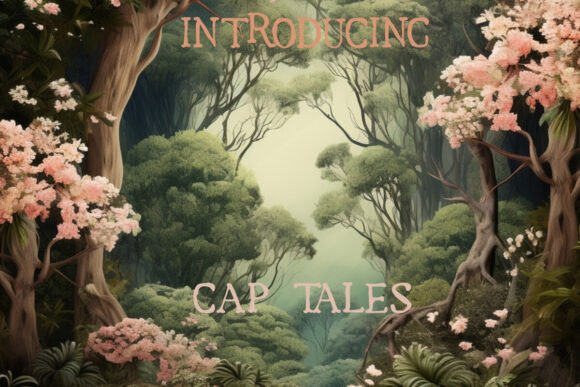
Discover the Versatility of Cap Tales Font: Elevate Your Designs to New Heights
Typography is an essential element in design, and the right font can make all the difference. If you’re a designer, crafter, or simply a creative enthusiast, you’re likely always on the lookout for fonts that can help you stand out from the crowd. That’s where Cap Tales font comes in – a versatile and charming typeface that’s perfect for a wide range of applications.
The Charm of Cap Tales Font
Cap Tales font is a unique and captivating typeface that’s designed to breathe life into your designs. Its adaptability is its greatest charm, making it suitable for various projects, from casual T-Shirt designs to professional magazine layouts. Whether you’re looking to create eye-catching stickers, amplify your brand’s voice, or add a personal touch to your greeting cards, Cap Tales font is the perfect choice.
Endless Possibilities with Cap Tales Font
The possibilities are indeed endless with Cap Tales font. Here are just a few examples of how you can use this versatile font to take your designs to the next level:
• T-Shirt Designs: Create custom apparel that’s both stylish and memorable with Cap Tales font. Its unique charm is sure to turn heads and spark conversations.
• Stickers: Add a pop of personality to your stickers with Cap Tales font. Perfect for laptops, water bottles, or any other surface that needs a bit of flair.
• Magazines: Elevate your magazine designs with the sophistication and elegance of Cap Tales font. Ideal for headlines, titles, and captions.
• Branding: Amplify your brand’s voice and message with Cap Tales font. Use it to create eye-catching logos, business cards, or marketing materials.
• Greeting Cards: Infuse warmth and personality into your greeting cards with Cap Tales font. Perfect for special occasions, holidays, or just to say hello.
• SVG Files: Personalize your SVG files with Cap Tales font and create custom designs for cutting machines, such as Cricut or Silhouette.
• Cricut Projects: Turn your Cricut projects into works of art with Cap Tales font. From custom signs to decorative items, the possibilities are endless.
• Posters: Create bold and eye-catching posters with Cap Tales font. Perfect for advertising, promoting events, or showcasing your art.
• Social Media: Get creative with your social media content and use Cap Tales font to captivate your target audience. From Facebook posts to Instagram stories, make your content stand out.
Why Choose Cap Tales Font?
So, why choose Cap Tales font over other typefaces? Here are just a few reasons:
• Unique Character: Cap Tales font has a distinct and charming personality that sets it apart from other fonts.
• Versatility: Use Cap Tales font for a wide range of projects, from casual designs to professional layouts.
• Ease of Use: Cap Tales font is easy to read and works well in various sizes, making it perfect for both print and digital designs.
• Customization: With Cap Tales font, you can experiment with different colors, textures, and styles to create unique designs.
In conclusion, Cap Tales font is a versatile and charming typeface that’s perfect for designers, crafters, and creative enthusiasts. Its adaptability and unique character make it suitable for a wide range of applications, from T-Shirt designs to magazine layouts. With Cap Tales font, the possibilities are endless, and it’s up to you to let your creations tell their own ‘Cap Tales’. So, get creative, experiment with different designs, and take your projects to new heights with Cap Tales font.